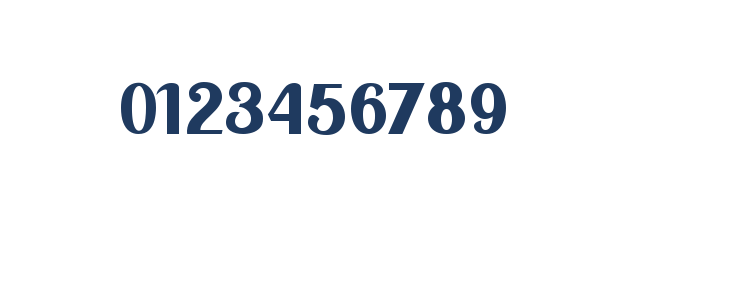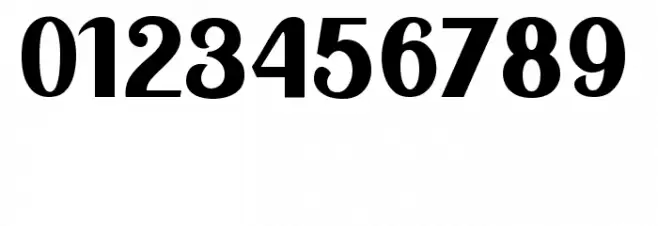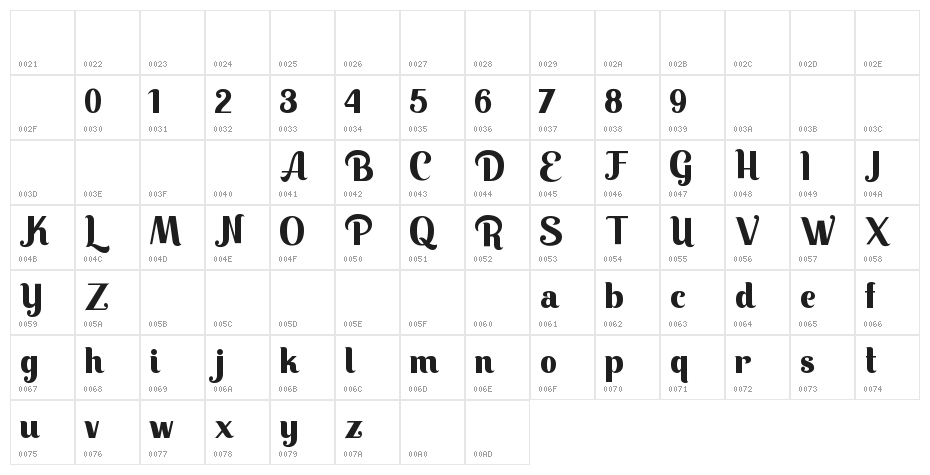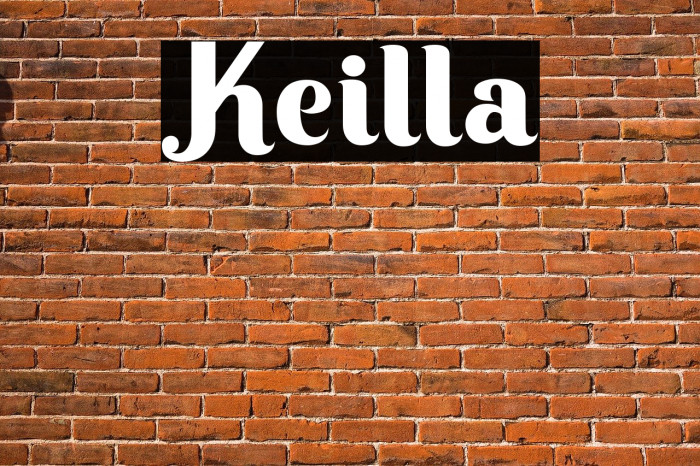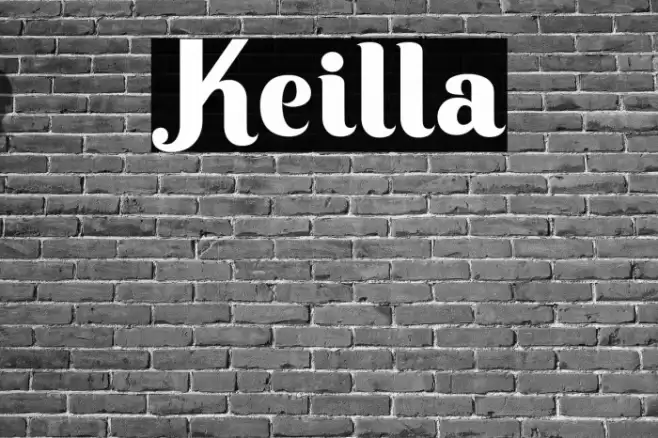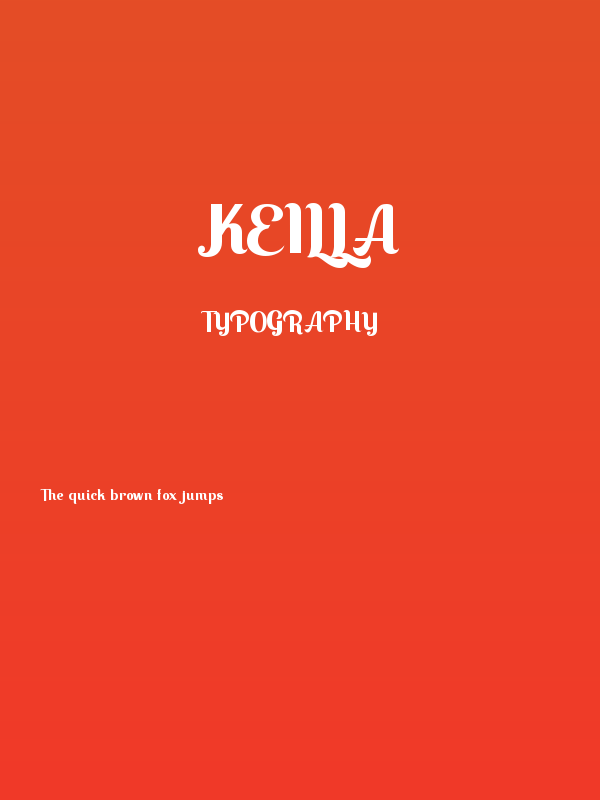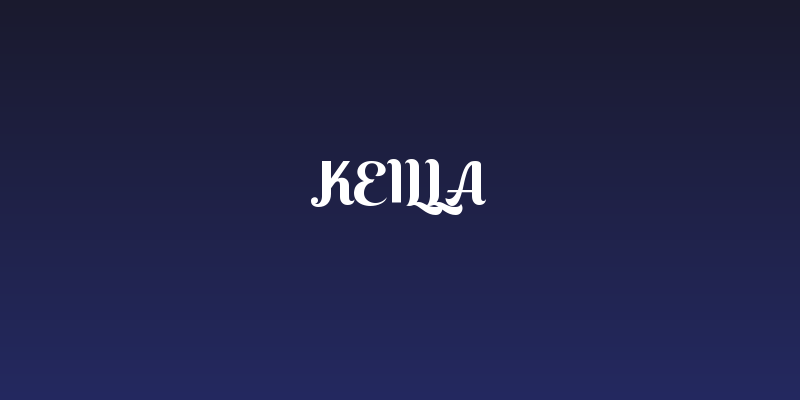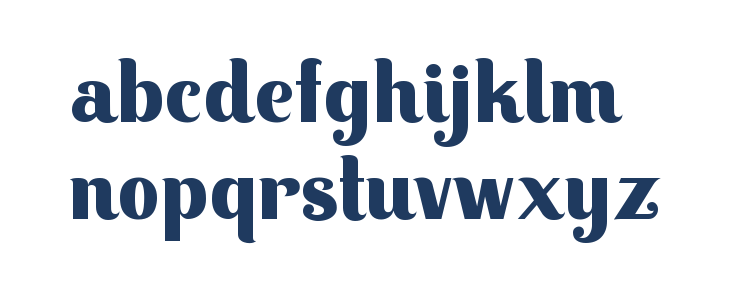
Keilla Font
Keilla Description
This font features a bold, decorative style with a strong presence. The uppercase letters are characterized by thick strokes and elegant curves, giving them a sense of grandeur and sophistication. The lowercase letters maintain a consistent weight, with rounded edges and a playful flair. The numerals are bold and easily readable, matching the overall aesthetic of the alphabet. Special characters are designed with the same attention to detail, ensuring a cohesive look across all glyphs. The font's unique style makes it suitable for projects that require a touch of elegance and boldness.